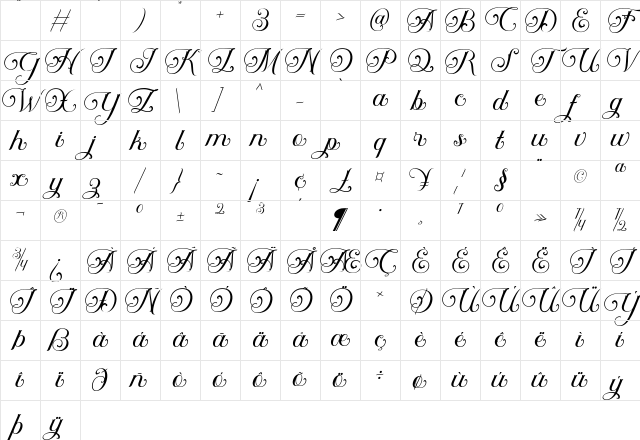
Auntha Clear Trial Regular Free Font
Auntha Clear Trial Regular
Designer: Naya
Design Context for Auntha Clear Trial
Auntha Clear Trial is a composed and adaptable typeface that performs quietly and consistently across a wide range of design contexts.